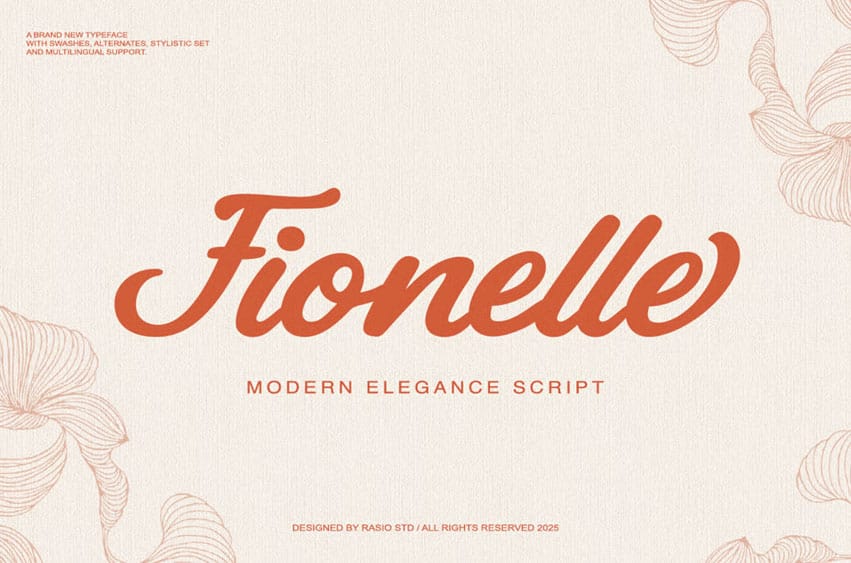
Fionelle Font Modern Script Font is a smooth, elegant, and contemporary typeface that captures the grace of modern handwriting. Designed by Rasio Studio, it combines flowing curves with confident strokes, delivering a stylish and timeless aesthetic. Perfect for branding, invitations, and editorial headlines, Fionelle adds a natural handwritten charm with professional refinement.
Its sleek ligatures, alternate characters, and swashes create versatile compositions, ideal for projects that require both sophistication and warmth. Whether in logos or social media graphics, Fionelle maintains legibility while expressing elegance and creativity.
Relevance and Use Cases is perfect for logo design, wedding invitations, personal branding, social media quotes, editorial headlines, posters, and beauty industry visuals that seek a handwritten touch of sophistication.
- Swashes & Stylistic Alternates
Add timeless charm to your designs with Fionelle — a modern handwritten script that blends effortless flow, stylish curves, and elegant personality in every letter.